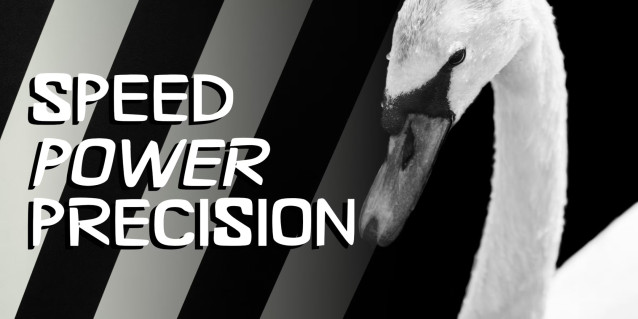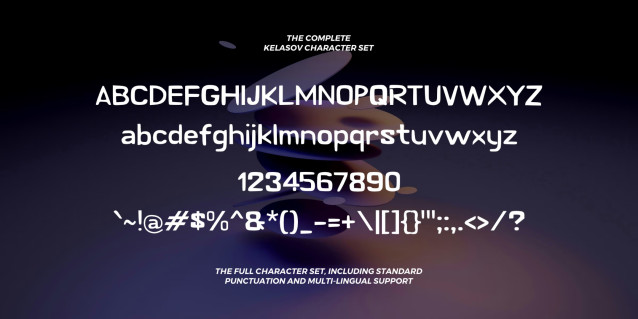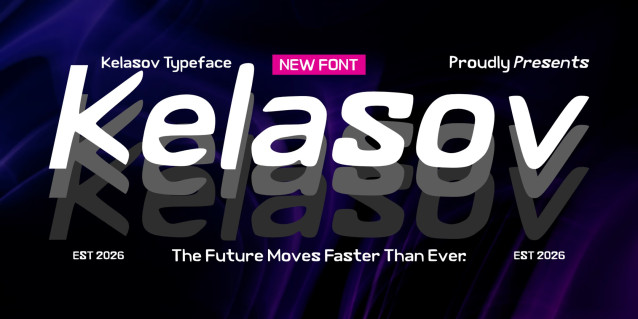
Kelasov Futuristic Display Font
Kelasov is a futuristic display typeface that combines sleek geometric forms with smooth rounded edges, creating a modern and energetic visual identity. Designed to capture the spirit of innovation, speed, and technology, Kelasov delivers strong readability while maintaining a distinctive sci-fi aesthetic.
Its clean construction and balanced proportions make it ideal for branding, gaming, esports, automotive projects, technology products, digital interfaces, posters, headlines, and futuristic visual concepts. The font features a complete character set with multilingual support, allowing designers to create impactful and professional designs across various creative applications.
Whether used for bold titles or eye-catching branding, Kelasov brings a sense of motion, confidence, and forward-thinking style to every project.